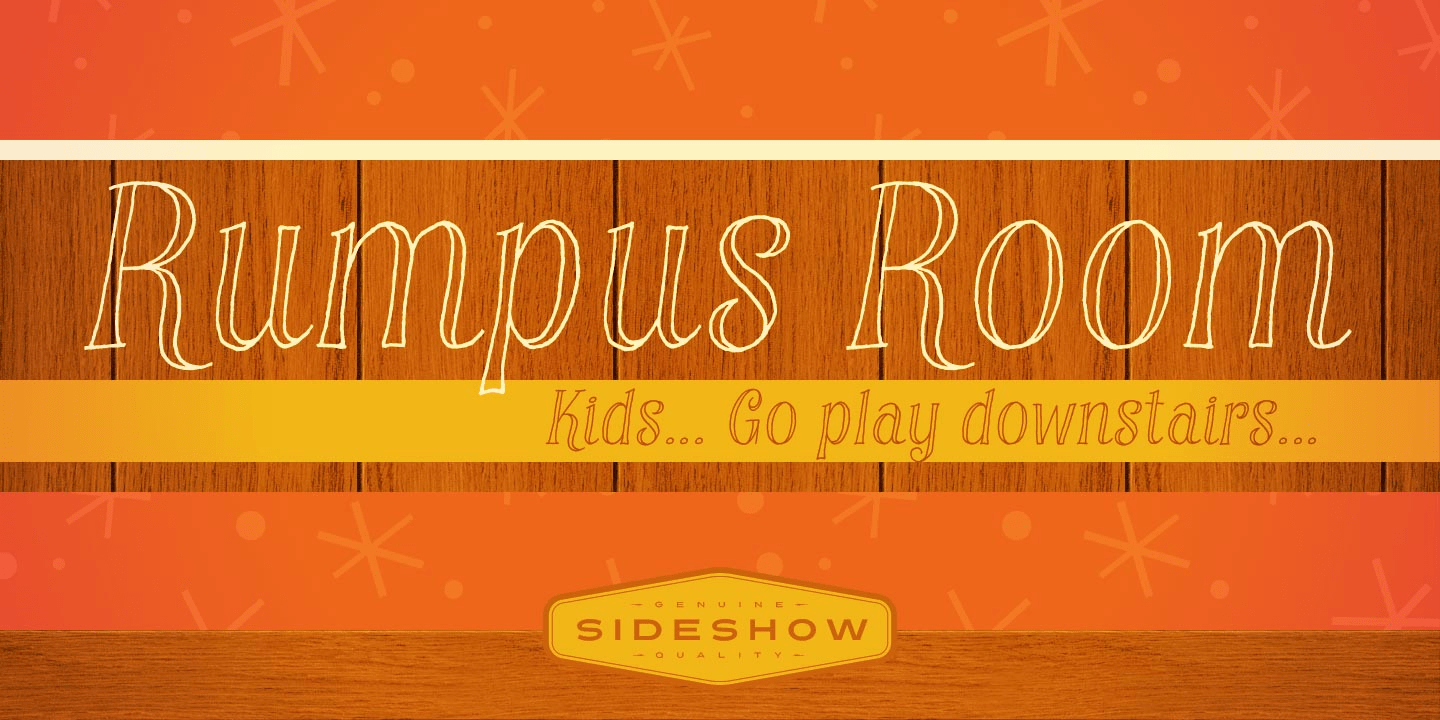
Rumpus Room
Font Family by Sideshow
Hey everybody! We could use a little excitement and I know just the place. Let's head down to the Rumpus Room! It's fun, it's casual and it's a guaranteed good time for all! This charming handwritten pen script looks right at home on your design work or next to a lovely macrame owl hanging!